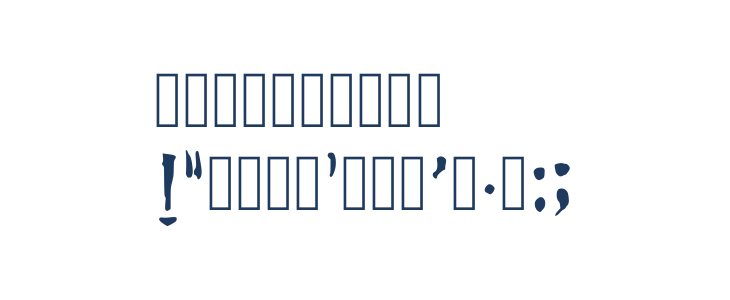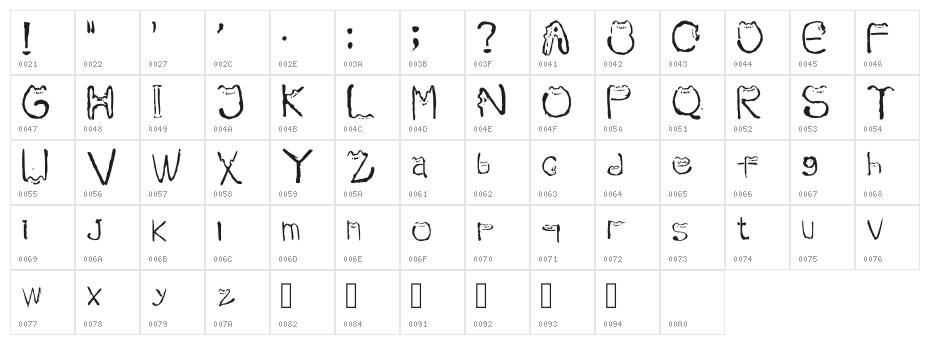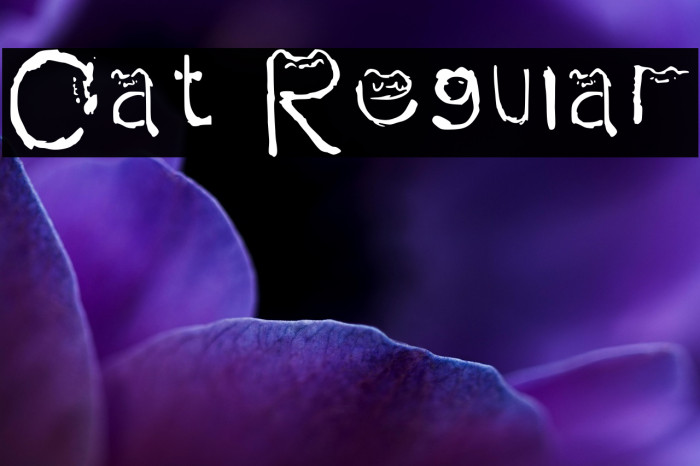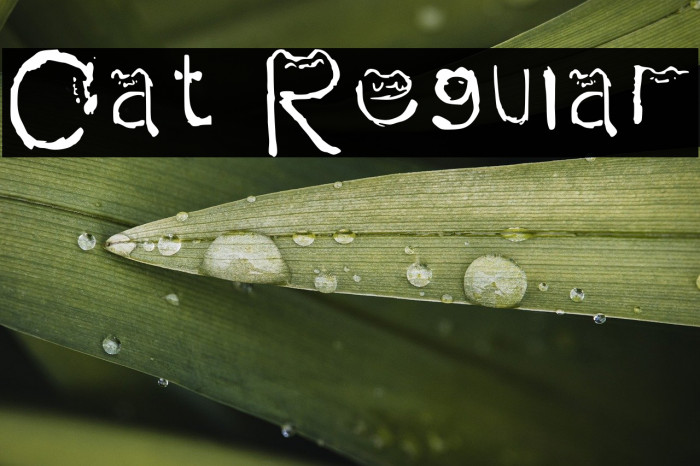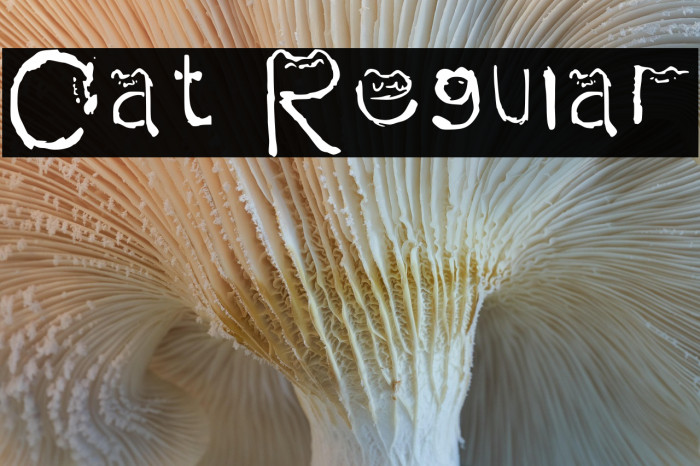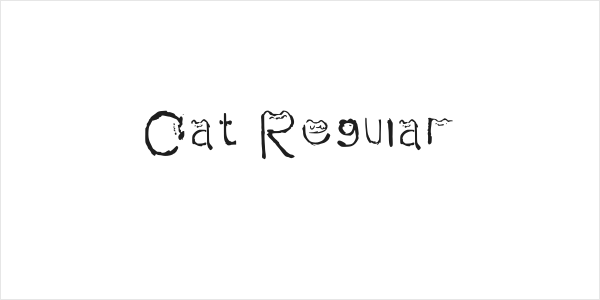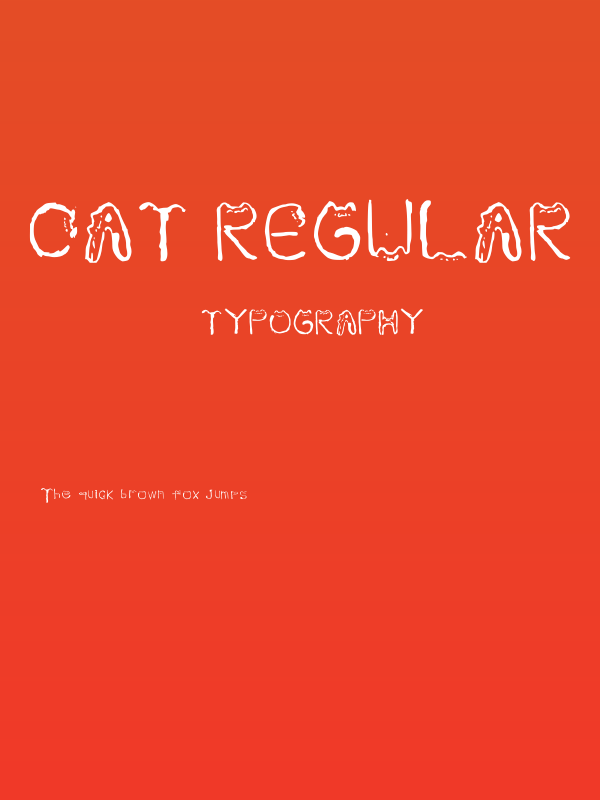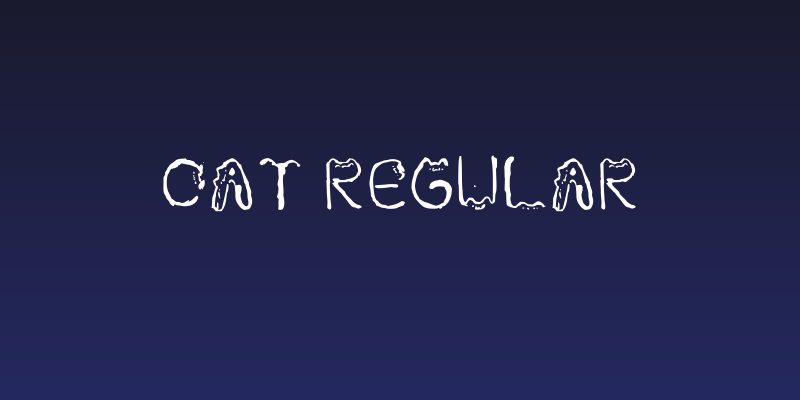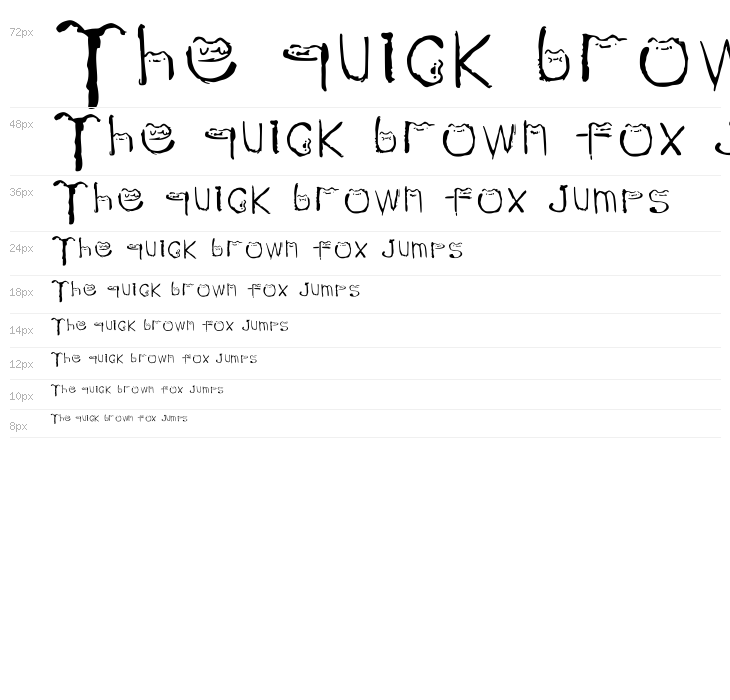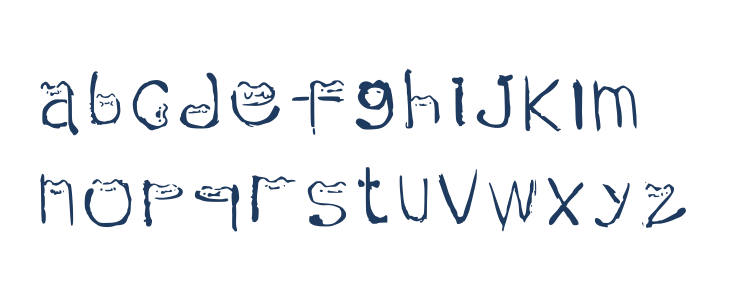
Cat Regular Font
Cat Regular Description
This playful and whimsical font features a unique design where each character incorporates a cat face motif. The letters have an irregular, hand-drawn appearance, adding a sense of fun and creativity. The uppercase and lowercase letters maintain a consistent style, with varying stroke thickness that gives the font a dynamic look. The numbers and special characters follow the same playful theme, making it suitable for projects that require a lighthearted and engaging typeface.
| Overall Style | Playful, Whimsical |
| Use Case | Headlines, Logos, Creative Projects |
| Proposed Projects | Ideal for children's books, playful branding, pet-related products, and creative invitations. |